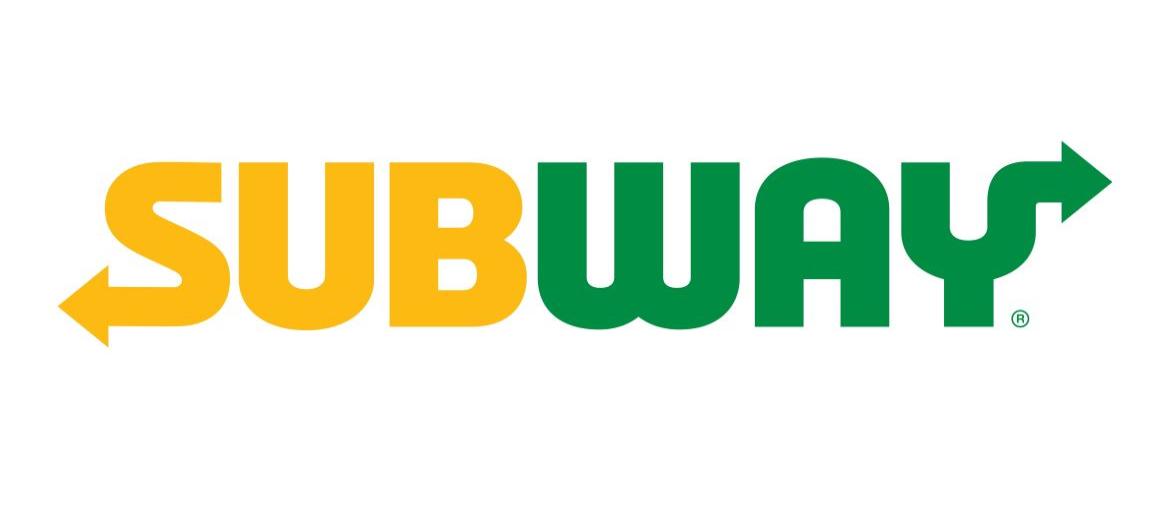
Subway Font
The Subway Font originates from Helvetica Neue Black Condensed, giving the brand a bold, condensed look that communicates reliability and clarity. This classic sans-serif choice provided a strong typographic foundation for the fast-food chain, ensuring high readability and a confident, approachable identity.
Over time, Subway evolved toward a custom minimalist style, retaining typographic authority while modernizing its visual identity. The font reflects the brand’s commitment to consistency and familiarity, making it instantly recognizable across thousands of locations worldwide.